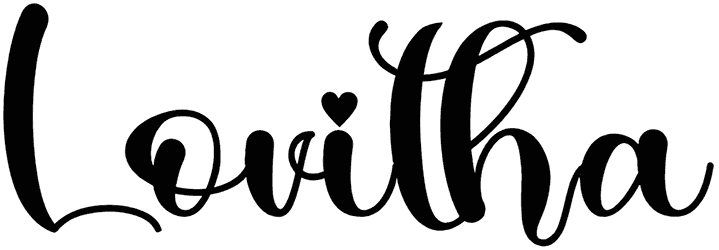
Lovitha Font
If you have been sweating to find the right font for your greeting card and still need to find the result, Lovitha can be the stopping point of your search. This love font will create the necessary personal atmosphere for romantic writing and intimate greetings.
It is also ideal for projects that must communicate directly with the audience and touch their soul. So stop working and taste the flavor of this script font.